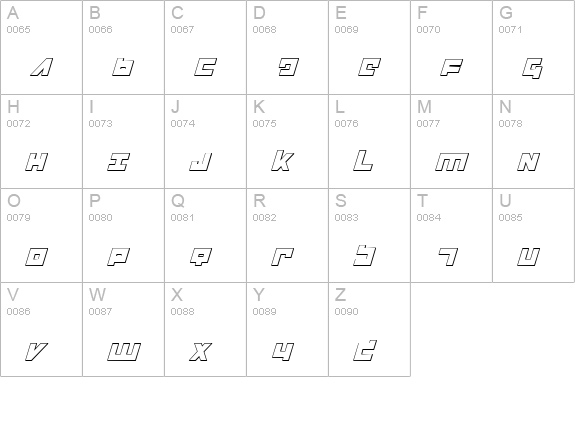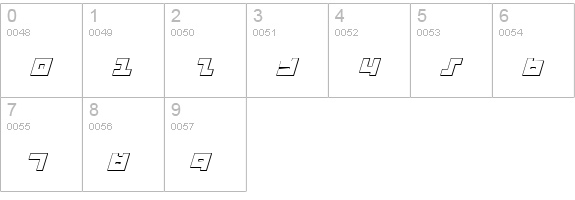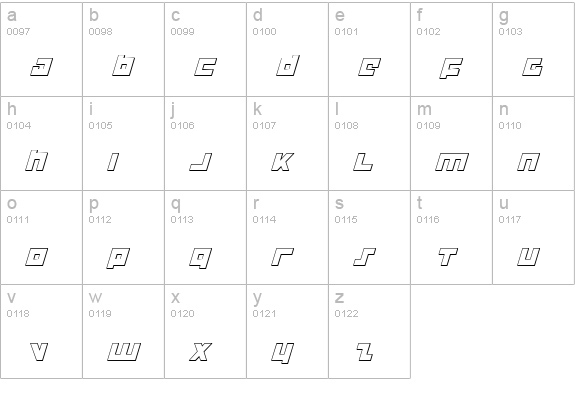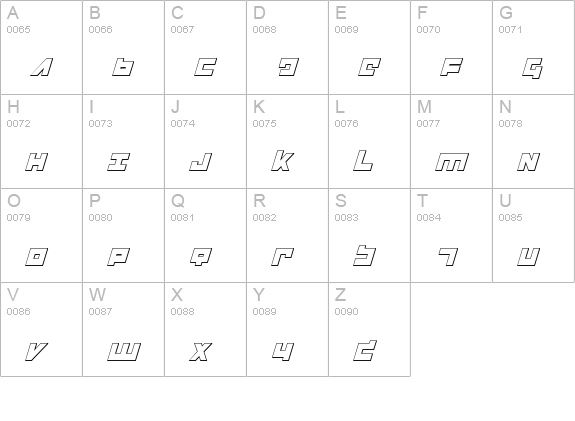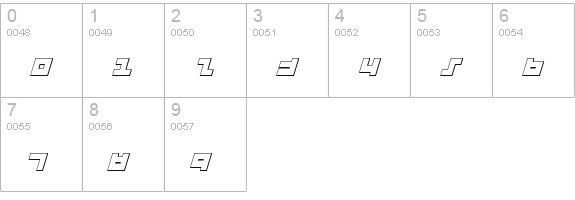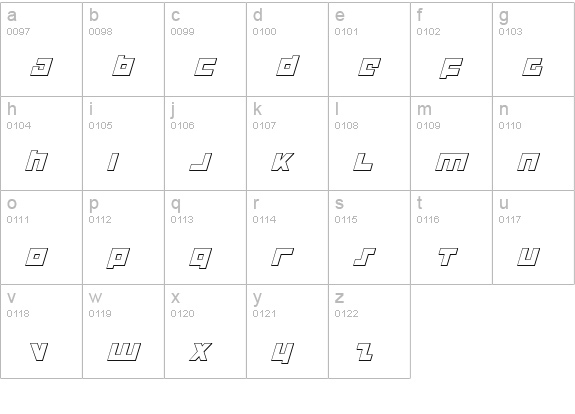
Flight Corps 3D Italic is a distinctive, italic variant in the Flight typeface family \xE2\x80\x94 well suited to design and typography projects.
Introducing Flight Corps 3D Italic font - a dynamic and modern typeface that adds depth and dimension to any design project. This unique font features sleek lines and a contemporary aesthetic, making it perfect for logos, headlines, and branding materials. The 3D effect of Flight Corps adds a sense of movement and energy to your text, ensuring it stands out from the crowd. Best of all, Flight Corps 3D Italic font is available for free download at FontsMarket.com. This means you can easily access and use this eye-catching font for your personal and commercial projects without any cost. Don't miss out on the opportunity to elevate your designs with the bold and stylish Flight Corps 3D Italic font - download it today and unleash your creativity!